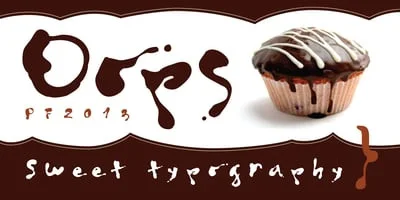
Oops Font
The Oops Font is an exceptional choice for projects that need a playful, hand-drawn, and casual aesthetic. Its slightly quirky, imperfect letterforms give it a charming and approachable feel, making it perfect for creating fun social media graphics, branding for small businesses, and invitations for casual events. This font is a superb fit for brands that want to convey a sense of genuine connection and artistic flair, such as boutique bakeries, artisanal craft stores, or photography studios. The Oops Font adds a layer of delightful personality to any design, ensuring your work feels genuinely one-of-a-kind.
What makes this font so exciting is its unique ability to combine a handcrafted, personal feel with high readability. The Oops Font is designed to look like it was drawn by hand, with a slight wobble that adds to its authentic charm. This handcrafted quality makes it feel personal and approachable, creating an instant connection with the viewer. Despite its playful appearance, the font maintains high legibility, ensuring that your message is both stylish and clear. It’s a typeface that works hard to convey a sense of fun and sincerity, making it a valuable asset for any project that aims for a casual, friendly feel.
The Oops Font family often includes a variety of styles and textures to give you more creative flexibility. While its main weight is perfect for headlines, the family might also include a regular version with a cleaner look or a more heavily textured variant for added effect. This range of options allows you to build a cohesive typographic system that is consistent across all your materials. The Oops Font is a great opportunity to explore these different styles and see how they can work together to create a powerful and unified brand identity.
By choosing the Oops Font, you’re opting for a typeface that works hard to not only convey information but also to build an entire atmosphere. It’s a font that ensures your projects are not just seen, but experienced, leaving a lasting impression on your audience.